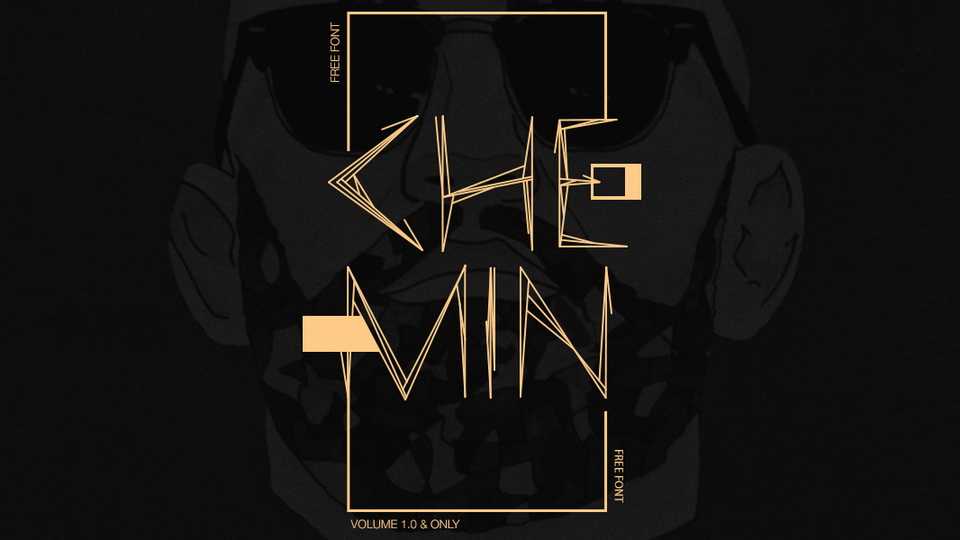
Download Cheminfont, a creative handwritten display typeface with a unique personality. Chemin font looks perfect for logo and branding, fashion, media, posters and other artworks.
Designer: Rajesh Rajput